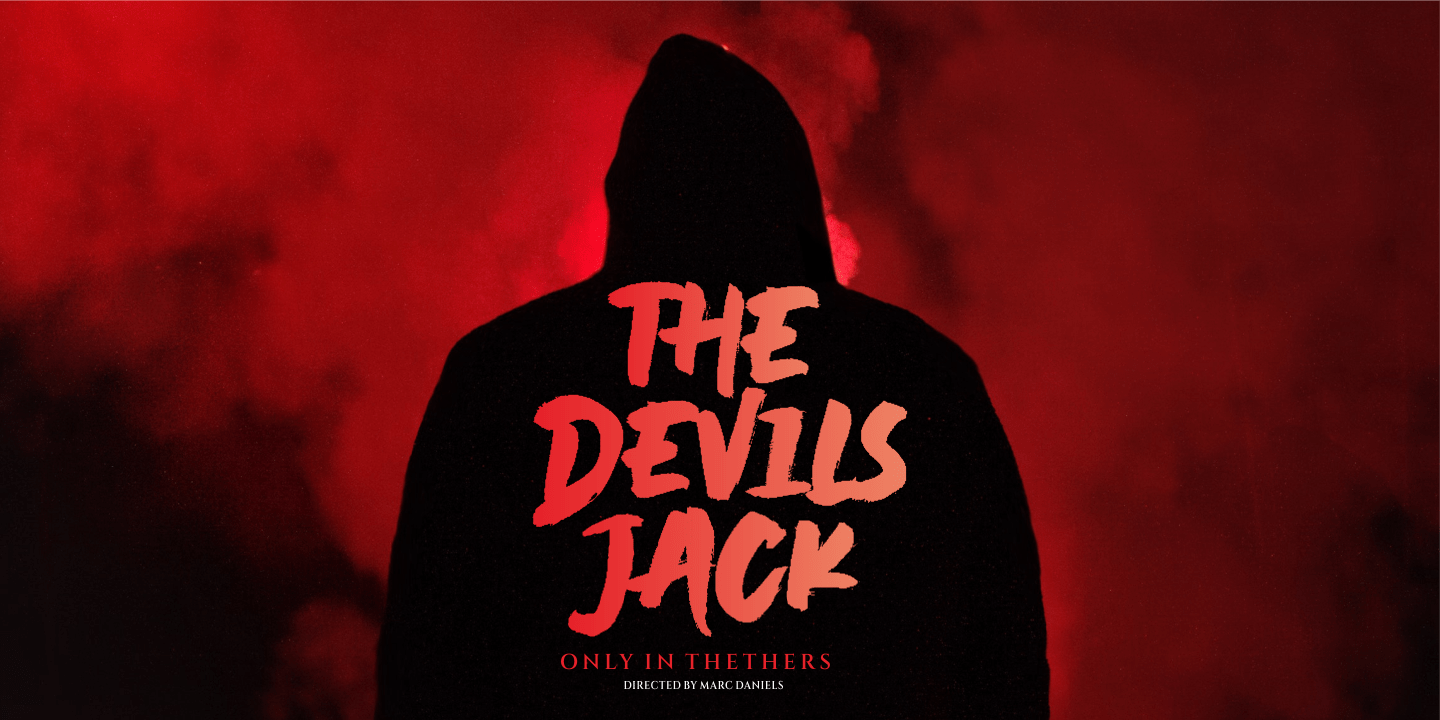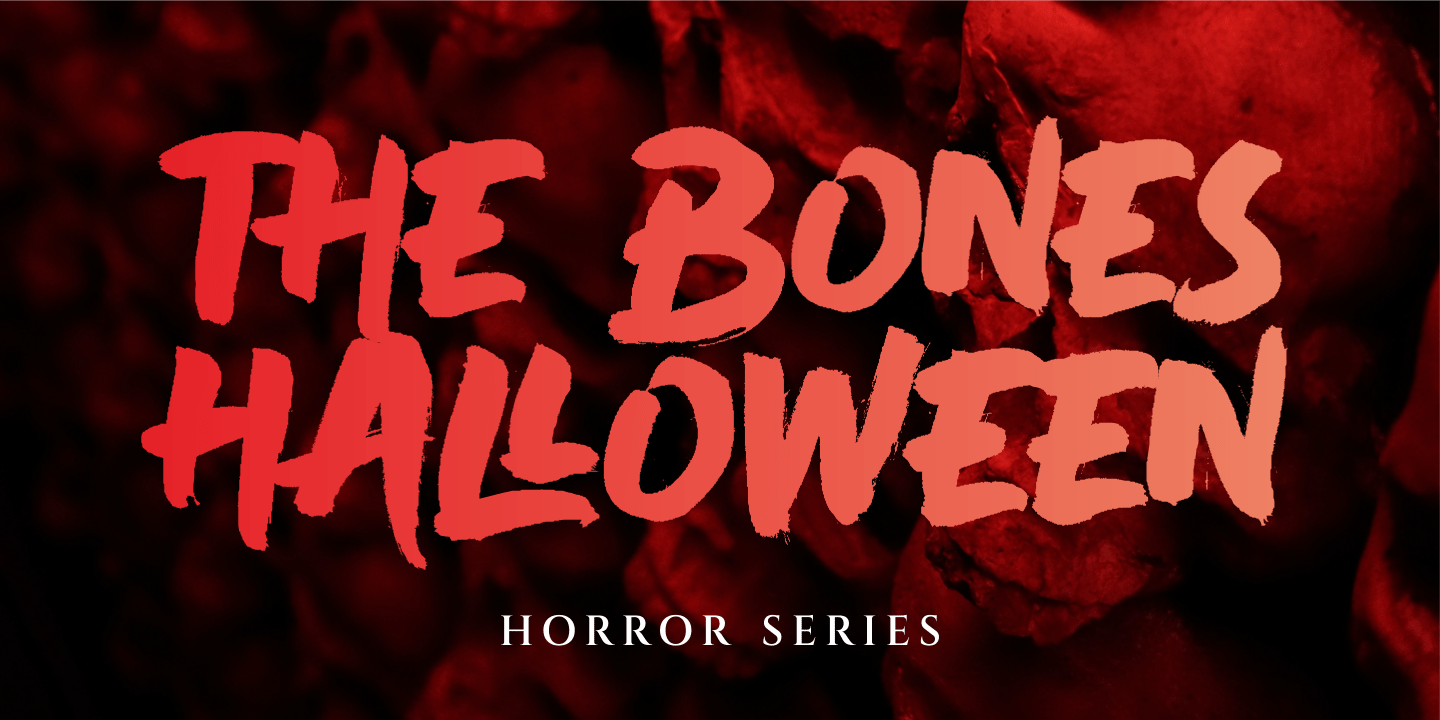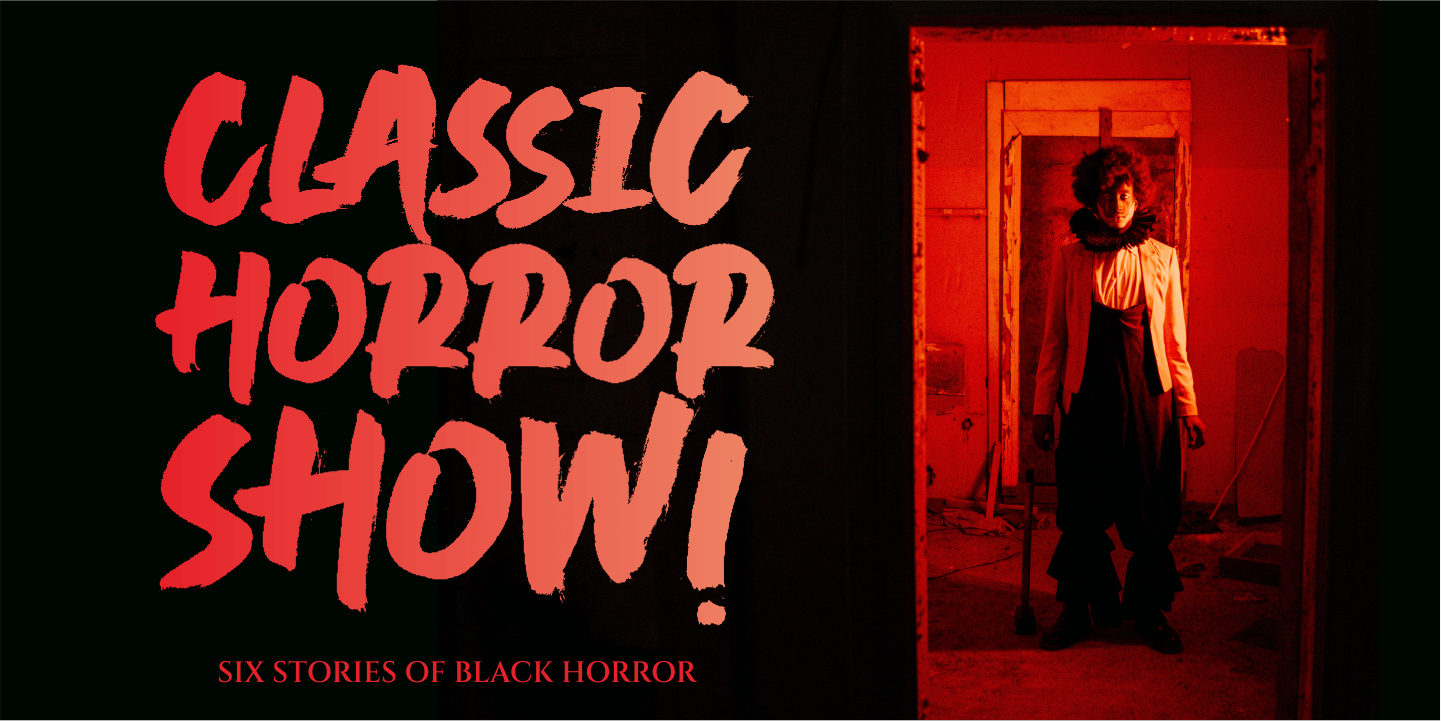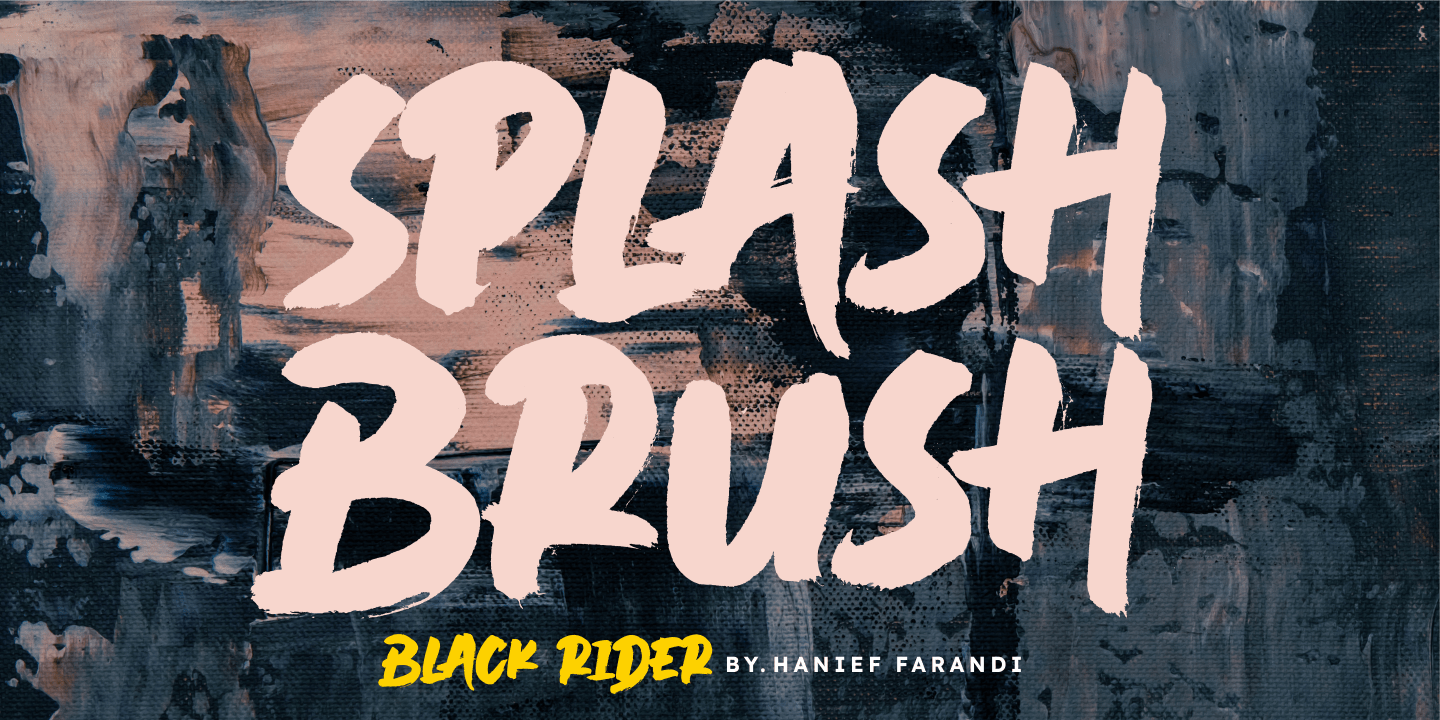
Black Rider Font
Black Rider Brush Font is a supercharged street brush font full of energy. With extra attention to quick strokes and sharp detail, Black Rider is guaranteed to deliver a very loud & fast message; ideal for logos, clothing, quotes, product packaging, movie titles, book covers or anything else that needs a typography turbo-boost.
Introducing Black Rider Brush Font
Black Rider Brush Font with contemporary, sophisticated accents. It is perfect for branding, wedding invites, tagline, cards, maybe for label and logo.
Black Rider Brush Font includes full set of gorgeous uppercase and lowercase letters, numerals, a large range of punctuation and ligatures. It expresses beauty of handwriting. What you get
• Uppercase & Lowercase
• Numerals and Punctuation